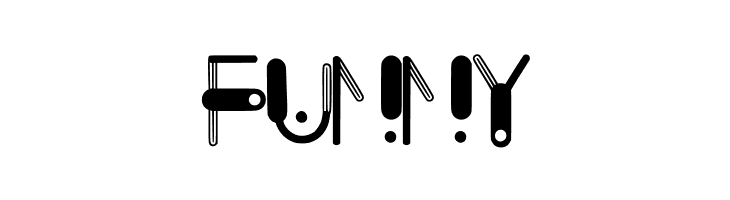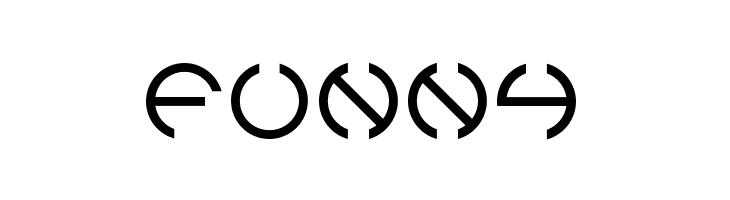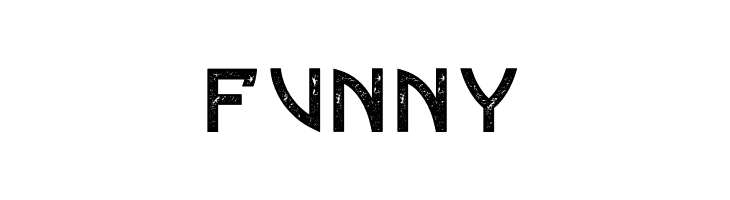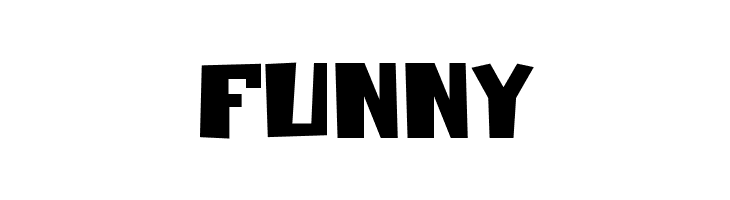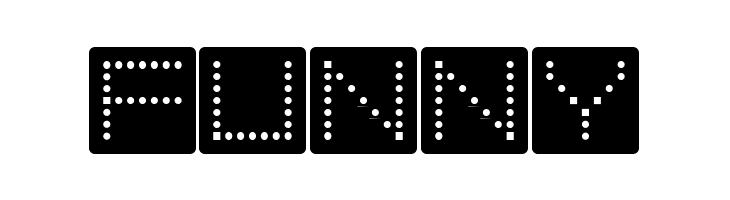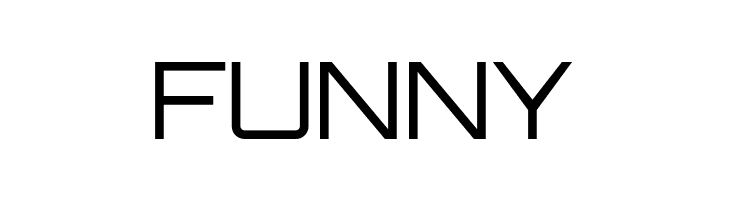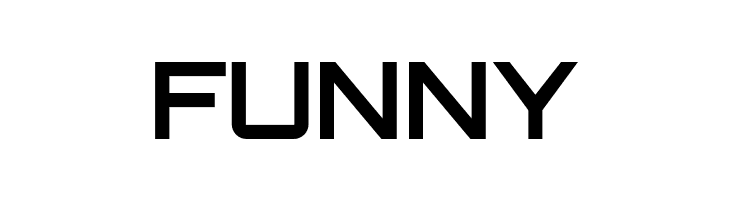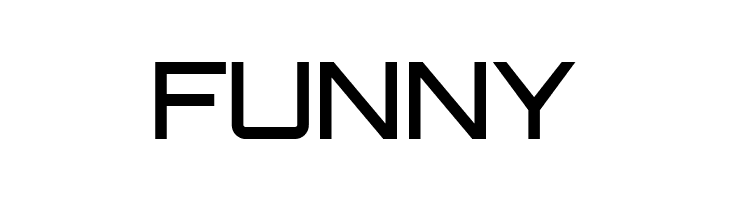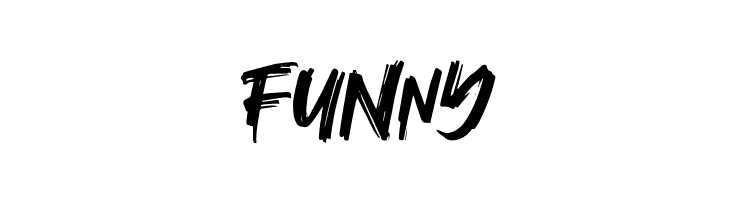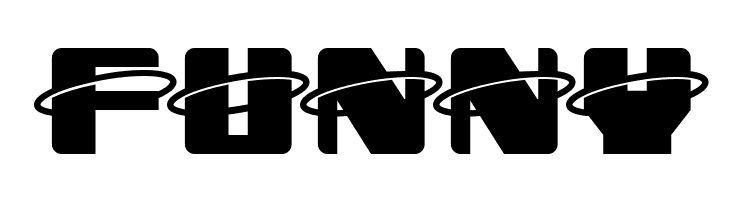
A bold, playful handwritten font with thick strokes and a casual style.
A modern, slightly condensed font with medium contrast and a professional appearance.
Bold, outlined font with a distressed, edgy texture.
A dot-matrix styled font with characters enclosed in squares, ideal for digital themes.
A modern, dot-based font with a digital, futuristic style.
A playful, rounded font with a hand-drawn, informal style.
A bold, futuristic font with geometric shapes and cosmic textures.
A bold, expansive font with a strong, blocky appearance.
A bold, distressed font with a rugged, vintage appearance.
A futuristic, bold font with a mechanical and digital aesthetic.
A futuristic, geometric font with bold, circular elements and linear accents.
A bold, playful font with a three-dimensional shadow effect.
A bold, condensed font with rounded edges and a strong visual impact.
A futuristic, geometric font with circular and angular elements.
A dynamic, expressive handwritten font with fluid, elegant strokes.
A bold, futuristic font with geometric and angular design elements.
A futuristic, geometric font with bold, clean lines and a digital aesthetic.
A sleek, futuristic font with geometric shapes and a modern aesthetic.
A futuristic, geometric font with clean lines and a tech-inspired aesthetic.
A futuristic, geometric font with clean lines and a modern aesthetic.
A futuristic, geometric font with bold, clean lines and squared edges.
A futuristic, geometric font with clean lines and a modern aesthetic.
A futuristic, geometric font with clean lines and angular shapes.
A rugged, bold font with jagged edges and a tribal, hand-chiseled appearance.
A bold, rugged inline font with a hand-drawn, distressed style.
A bold, dynamic brush script font with expressive strokes and a hand-painted appearance.
A bold, geometric font with angular and dynamic characters.
Marine-themed dingbat font with orcas, whales, and nautical icons.